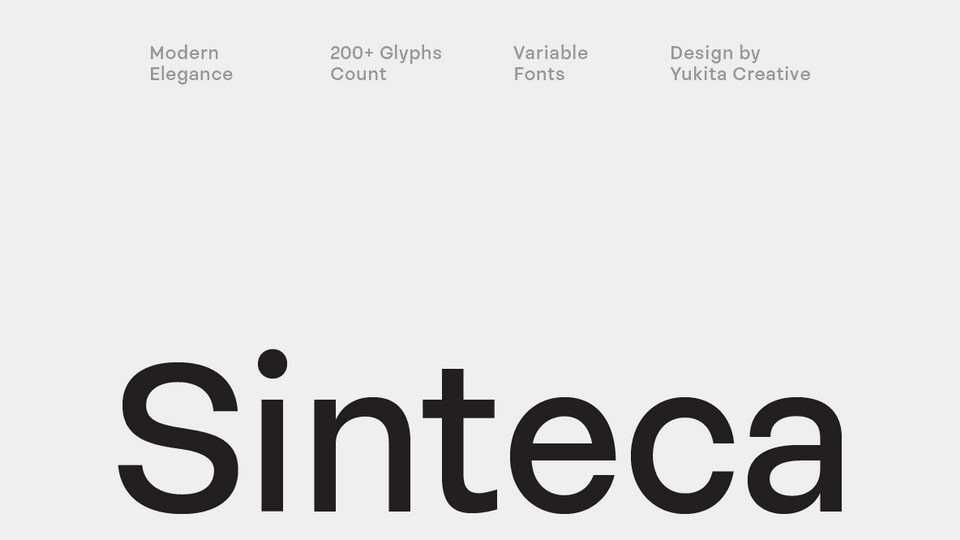
Download Sinteca font, a modern sans serif typeface designed with contemporary beauty and readability as top priorities, the perfect choice for a variety of design projects.
Designer: Yukita Creative